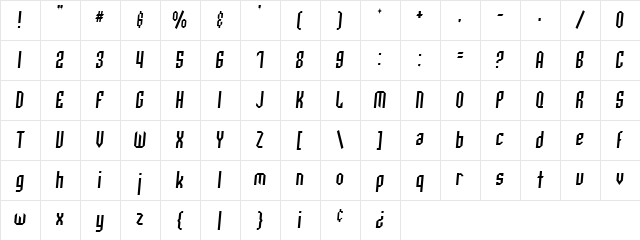
Archery Black Condensed Italic
Complete Archery Black Condensed Italic glyph index. Displaying only characters natively supported by Archery Black Condensed Italic font.
Design Context for Archery Black Condensed
Archery Black Condensed is a composed and adaptable typeface that performs quietly and consistently across a wide range of design contexts. The slanted form adds forward momentum and visual energy. Its narrow stance lets it pack a punch even in space-constrained designs.
Pro Tip: Use Archery Black Condensed for emphasis, pull quotes, and subheadings where its slanted energy can add rhythm to the layout.